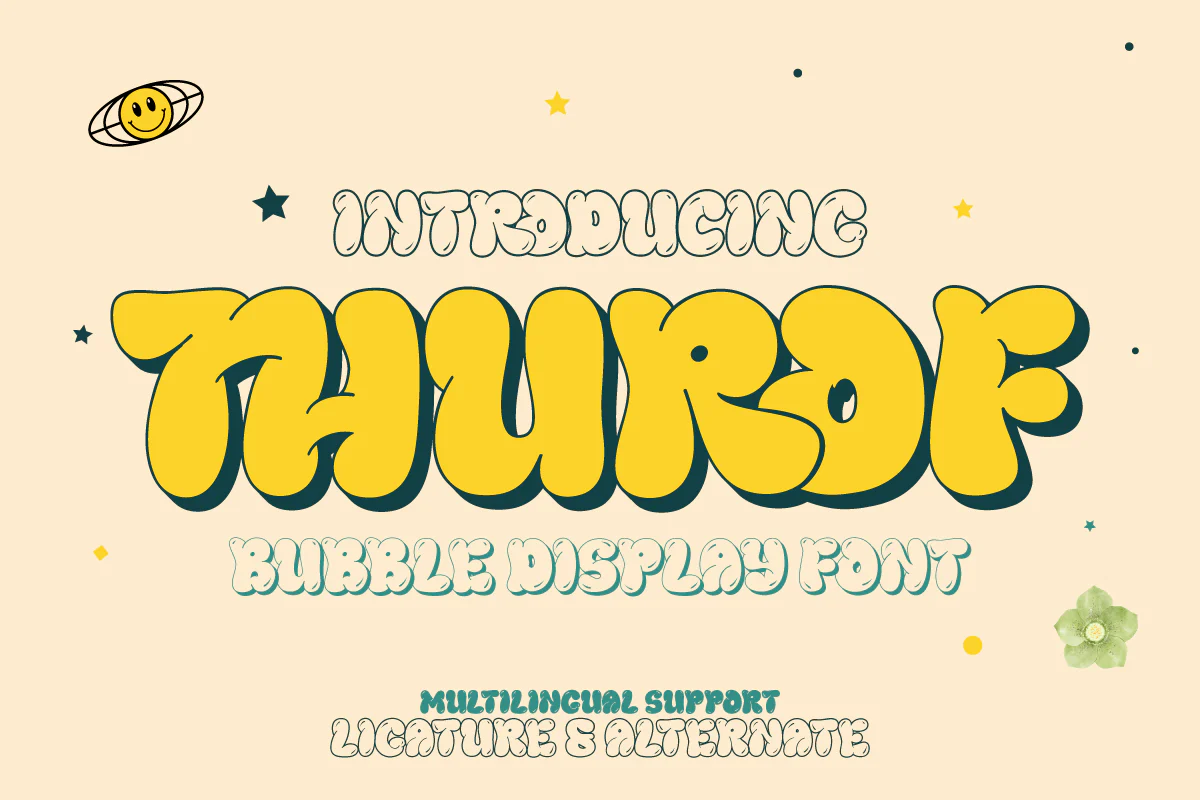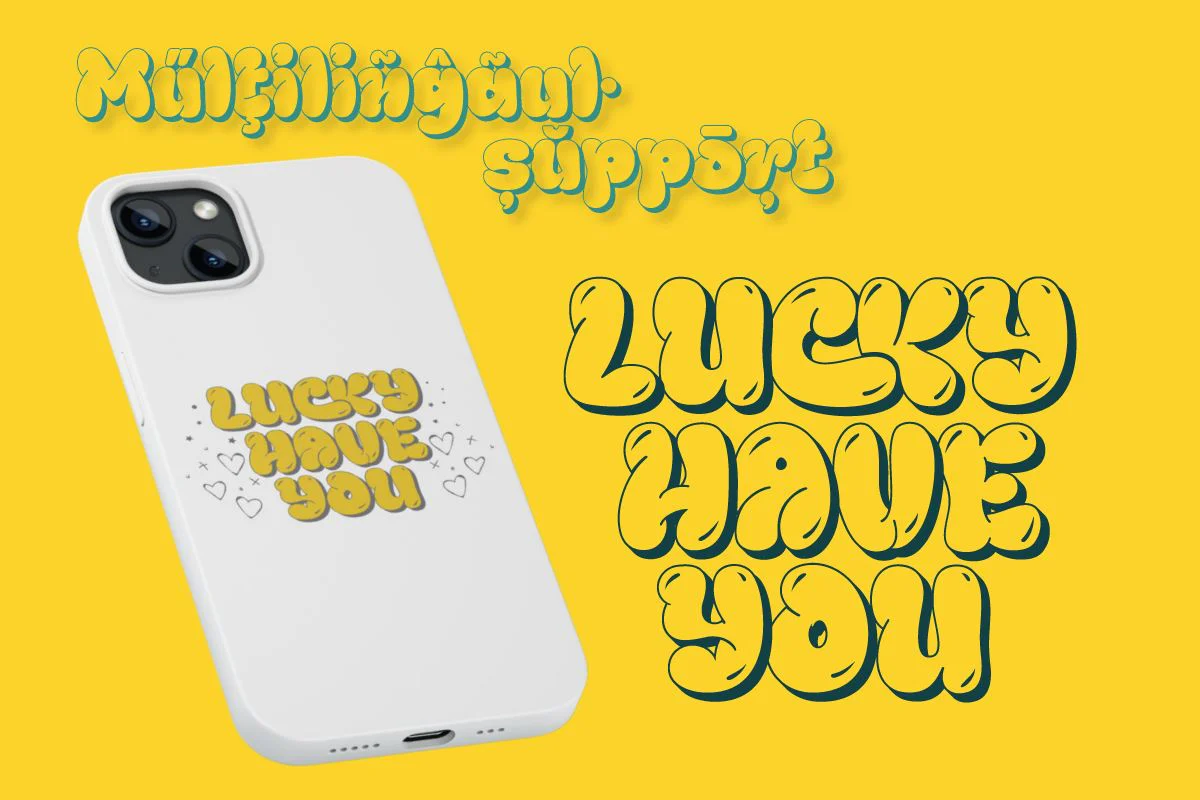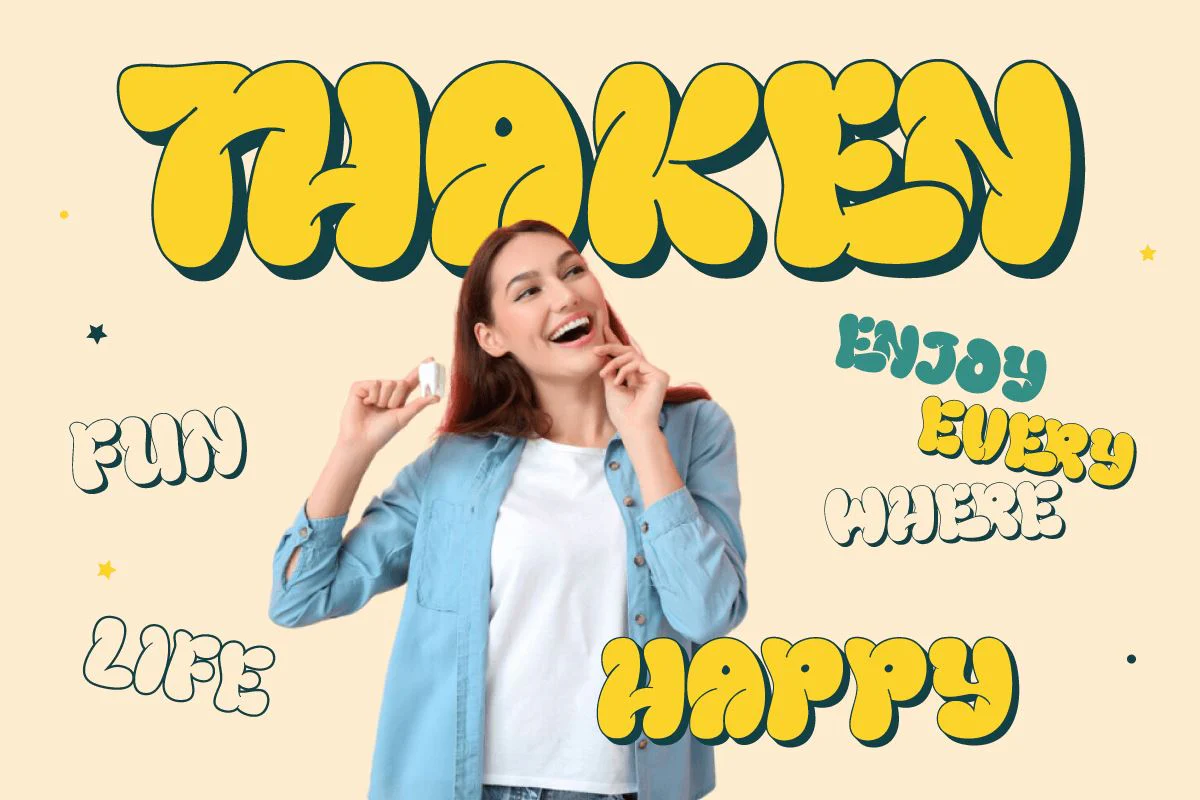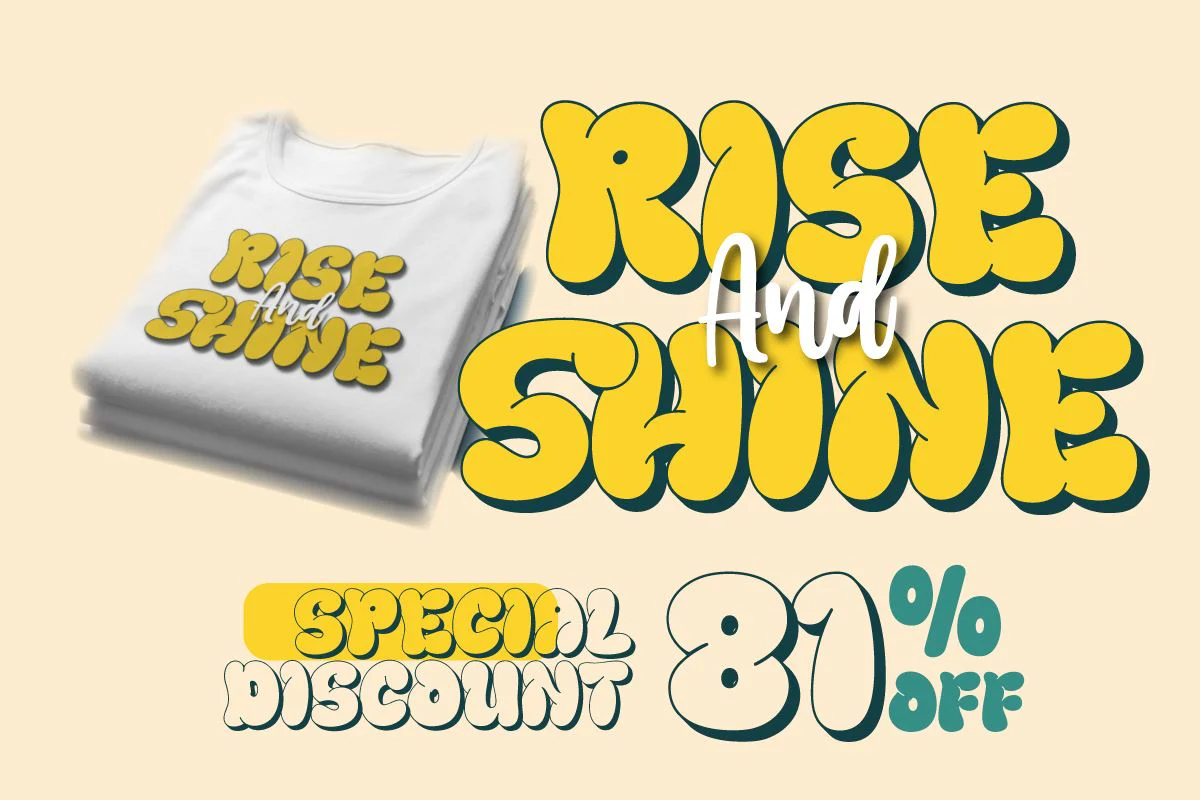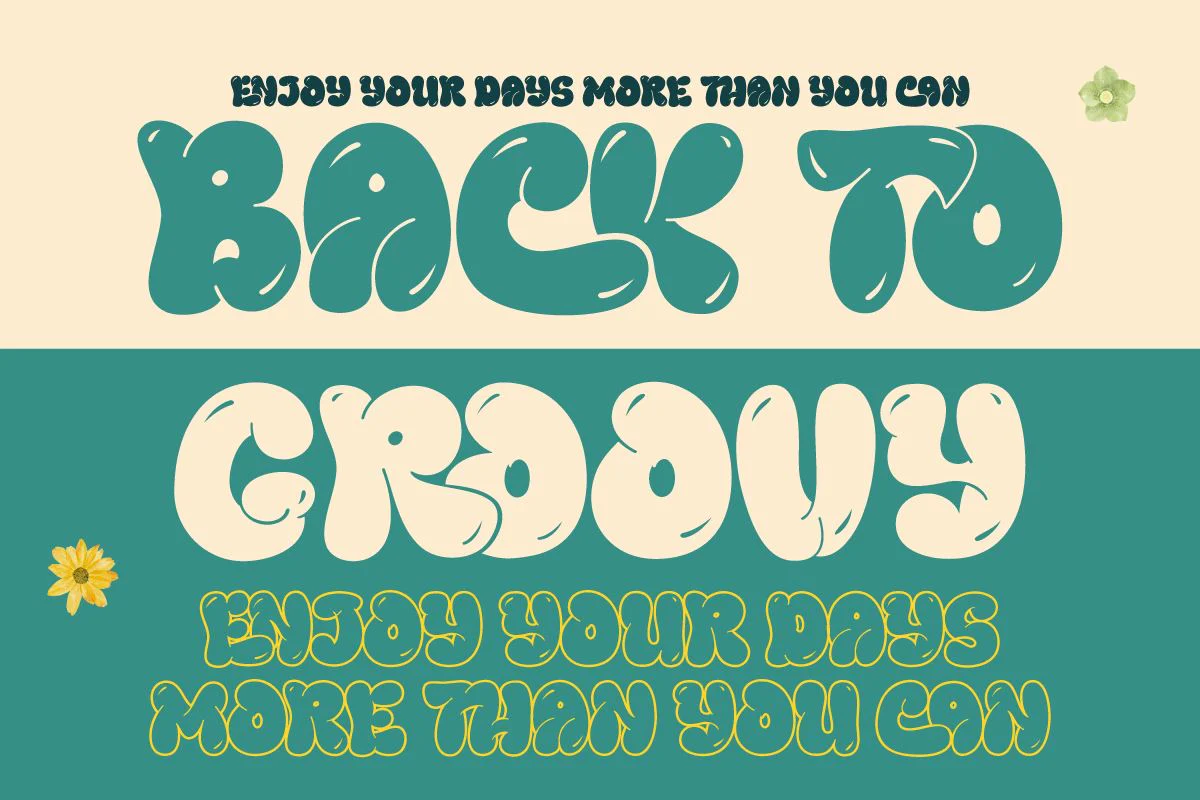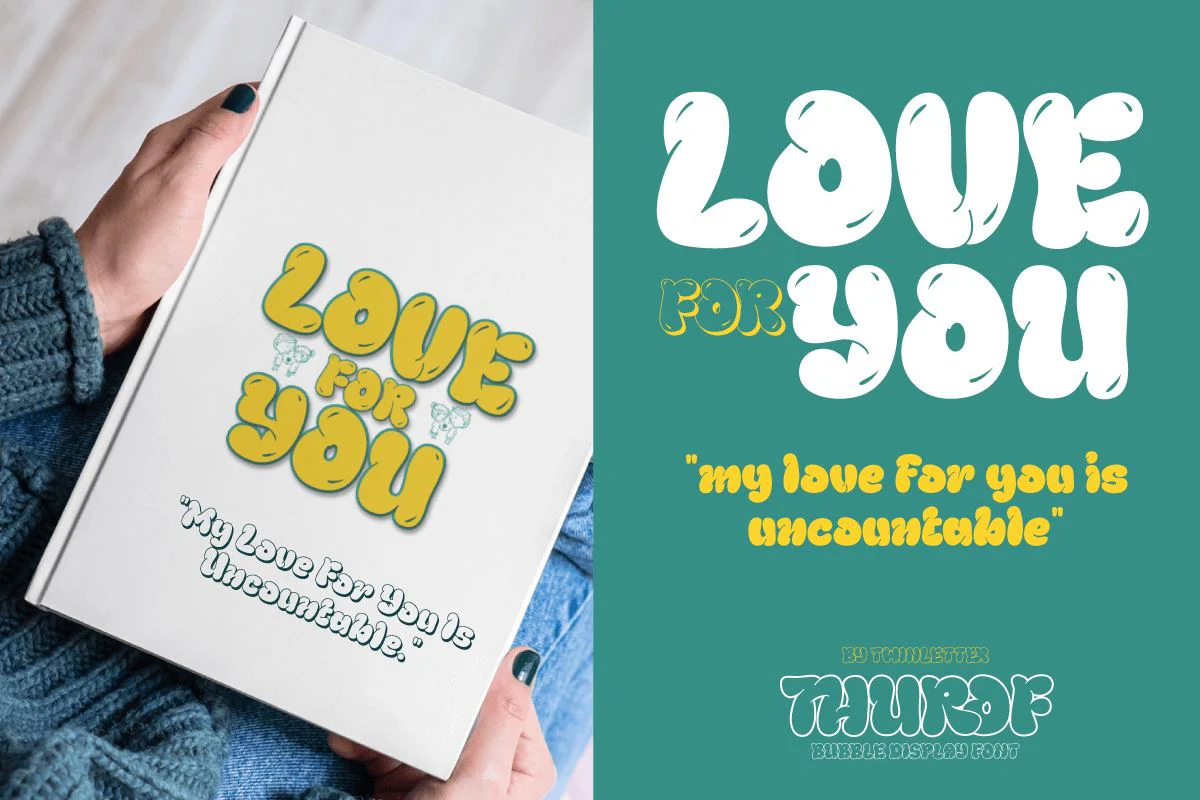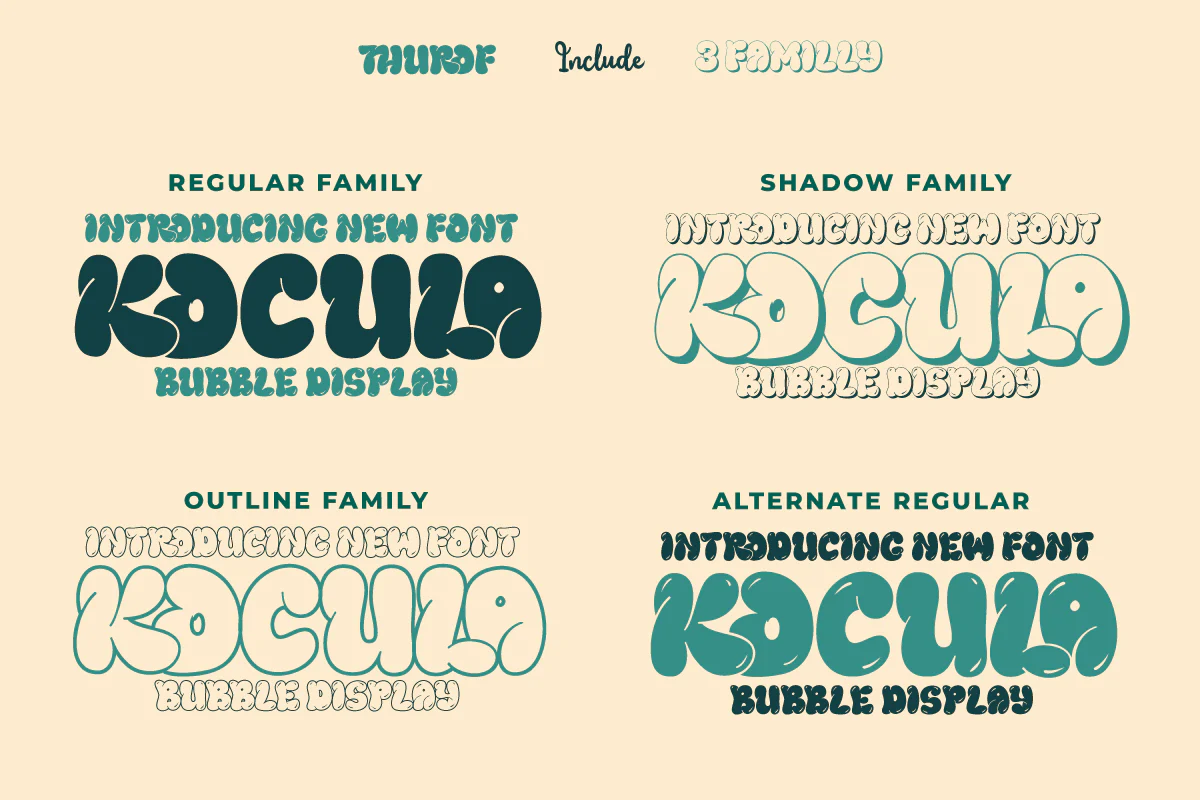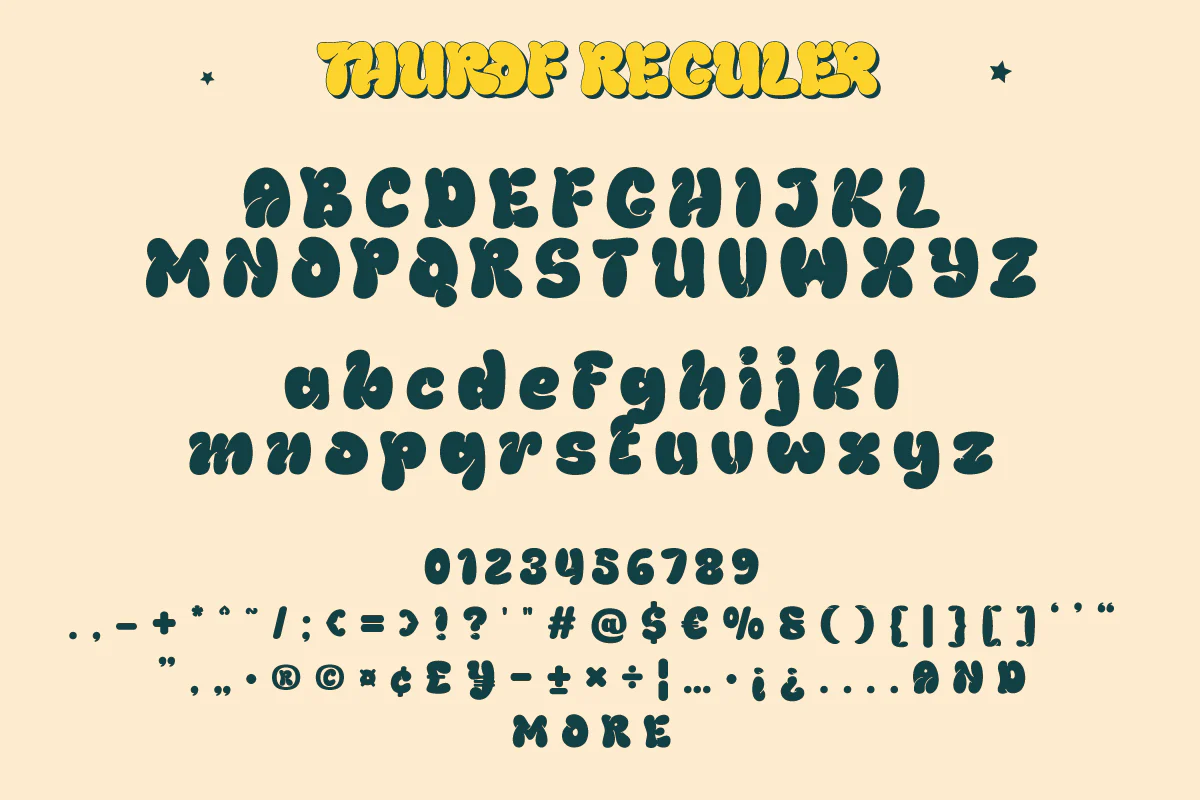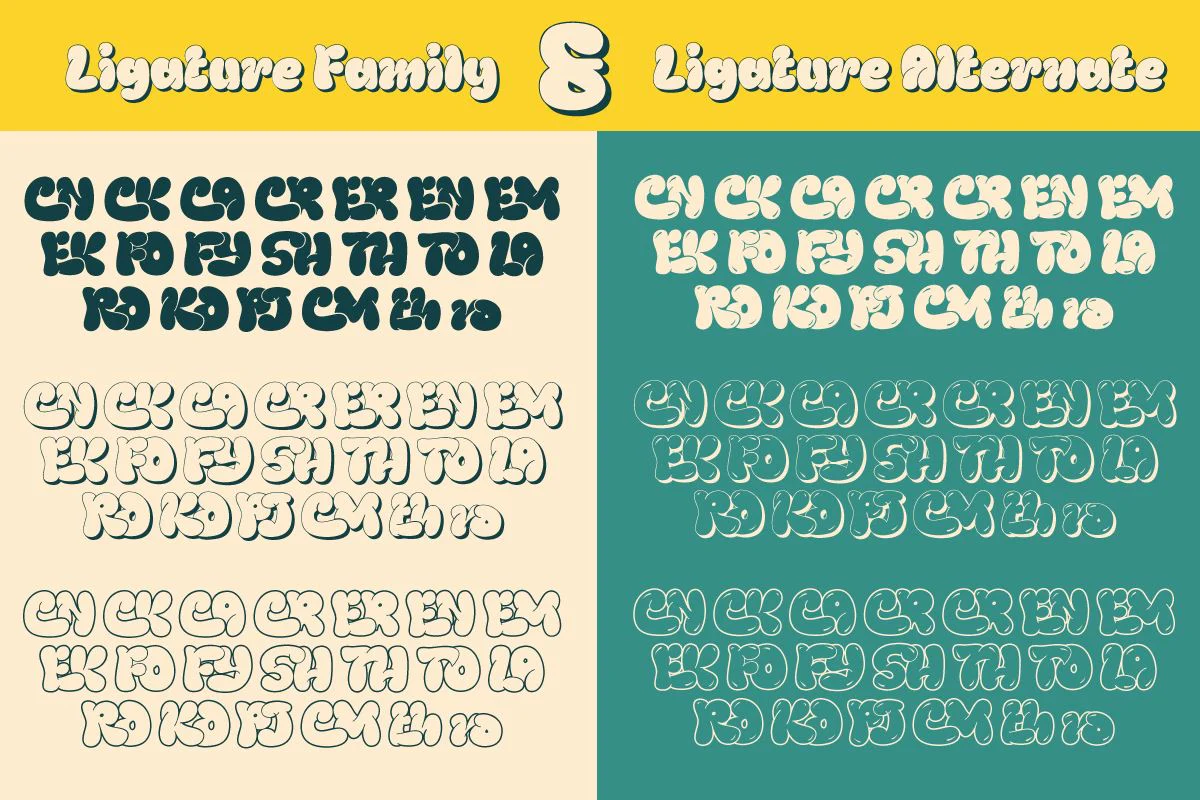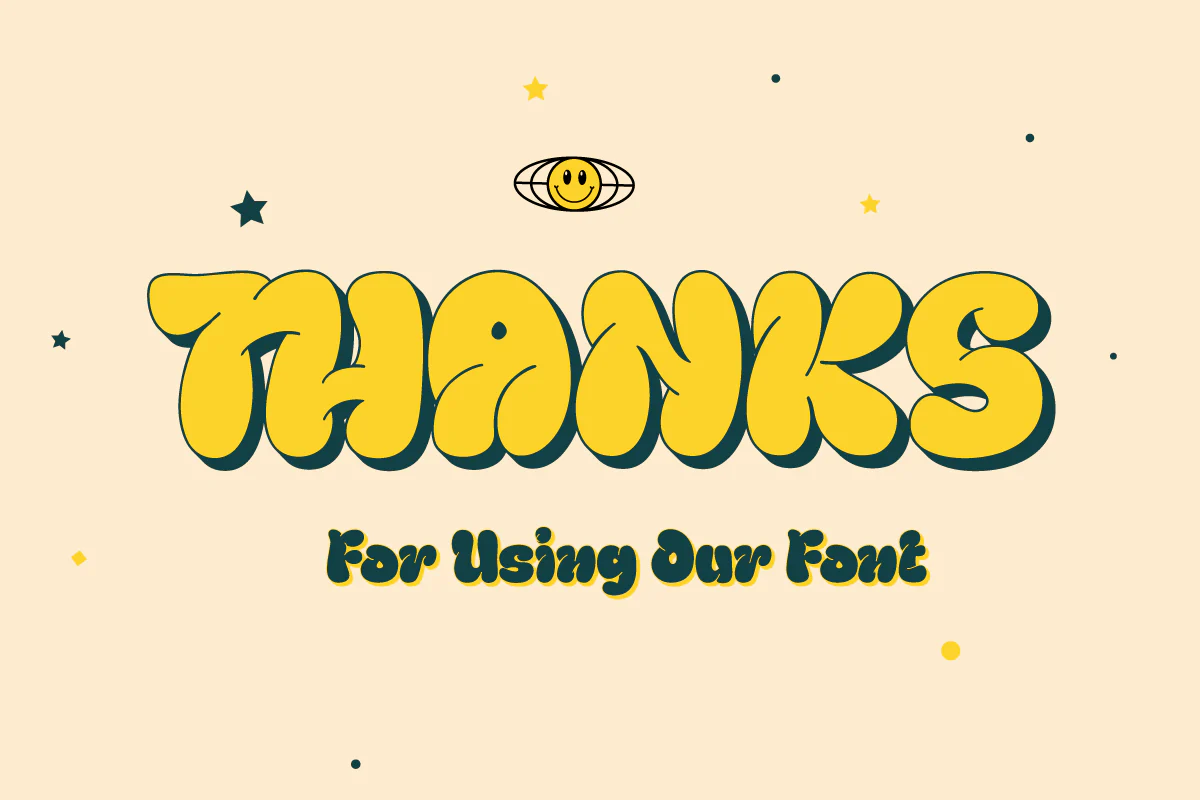
Thurof - Bubble Font
Welcome to the world of Thurof, a bubble typeface that will provide a strong, bold, and whimsical touch to your projects. Do you want to make your messages more colorful and entertaining? Thurof is the ideal candidate. Thurof is available in three different styles: Regular, Outline, and Shadow. This means you can produce an effect that is appropriate for your project, from bright to lighter with an outline or shadow effect. Thurof's plethora of variant ligatures and characters distinguishes it from other languages. This allows you to use your imagination to create unique and inspiring designs. Thurof's multilingual support will also assist you in spreading your message over the world. Thurof is an excellent choice for projects that demand a fun, playful appearance. Allow Thurof to transform your message into something vibrant and inspiring, and leave an indelible impact.